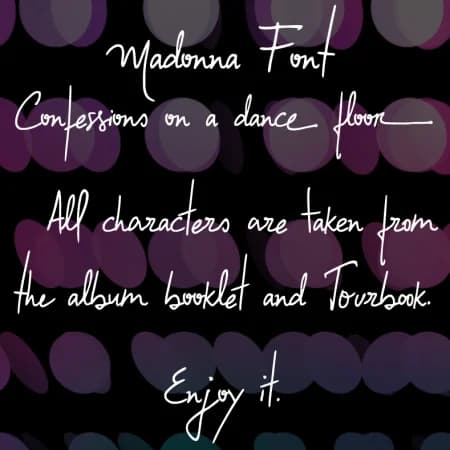
About Madonna Font
Madonna Font by Xpeehdroox is a flowing script typeface that merges the organic curves of hand lettering with the rhythmic energy of early 2000s pop aesthetics. The design captures a sense of movement and artistic expression through its characteristic letterforms, making it an excellent choice for creative projects that demand personality-driven, distinctive typography and authentic visual voice.
This handwritten script excels when organic, expressive letterforms can meaningfully define a brand's identity. Wedding invitation suites gain romantic sophistication from its flowing curves, while artisanal product packaging and cosmetics branding benefit from the authentic, hand-crafted quality the typeface conveys. DIY crafters will appreciate its versatility across custom merchandise designs, personalized gift packaging, and vinyl sticker projects where individual character matters more than corporate consistency. The script also performs well for event posters, product label design, and editorial graphics seeking warmth and personality beyond digital perfection.
Madonna Font is a script font that shines as a display or heading face. Pair it with a clean sans-serif or serif font for body text β the contrast creates a clear hierarchy while the two styles stay balanced and easy to read.
Madonna Font
by Xpeehdroox